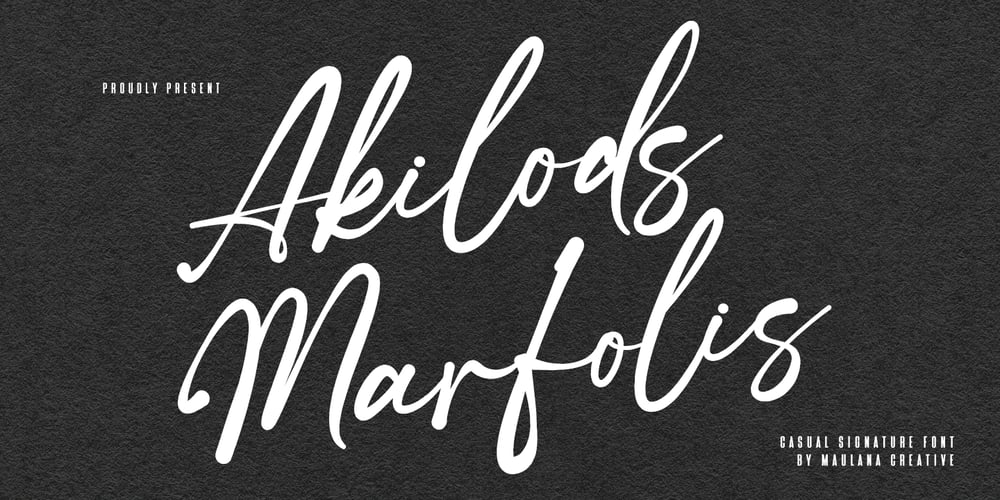
MC Akilods Marfolis Sans Font Family was designed by Gilang Maulana and published by Maulana Creative. MC Akilods Marfolis Sans contains 1 styles and family package options. Give your designs an authentic brush handcrafted feel. Akilods Marfolis include ligature and alternate. Akilods Marfolis include free sans serif. Akilods Marfolis is perfectly suited to signature, stationery, logo, typography quotes, website header, branding and more.Thanks for use this font.Maulana Creative